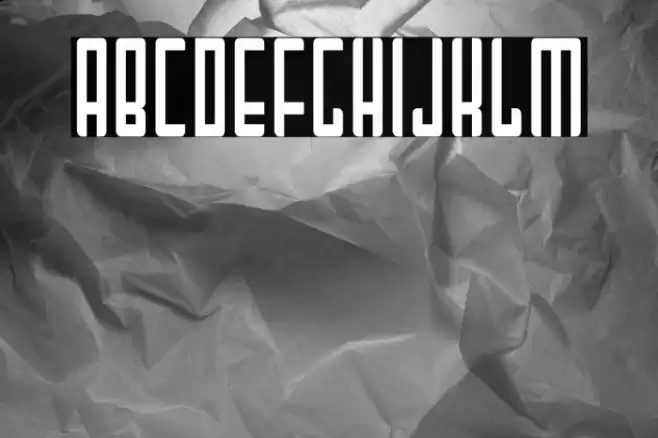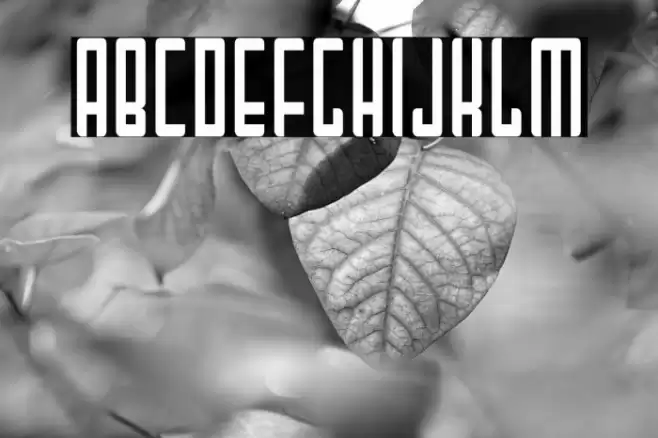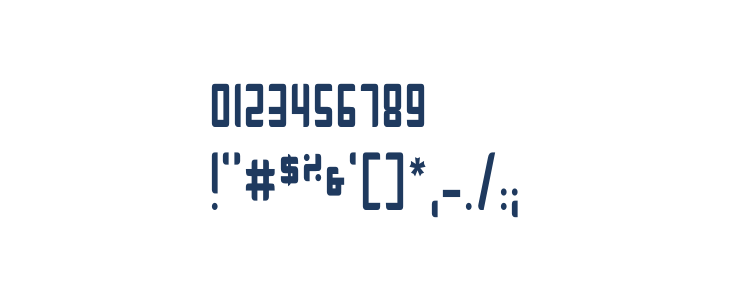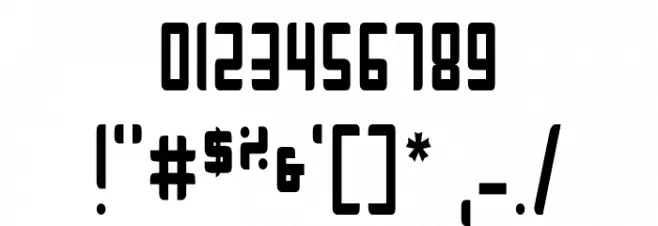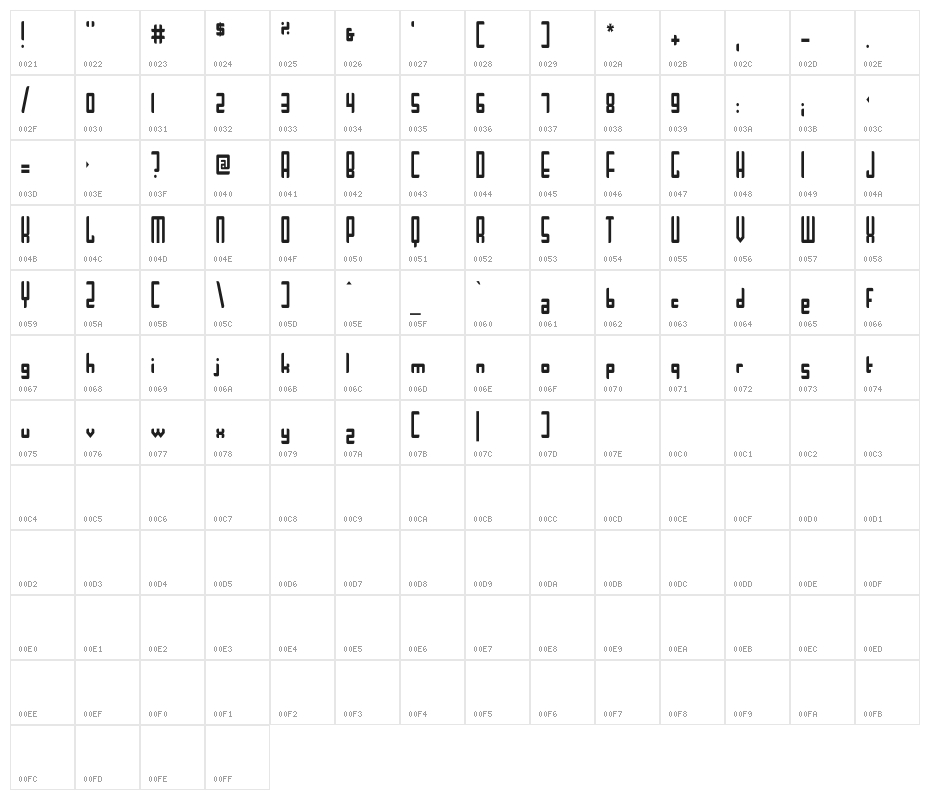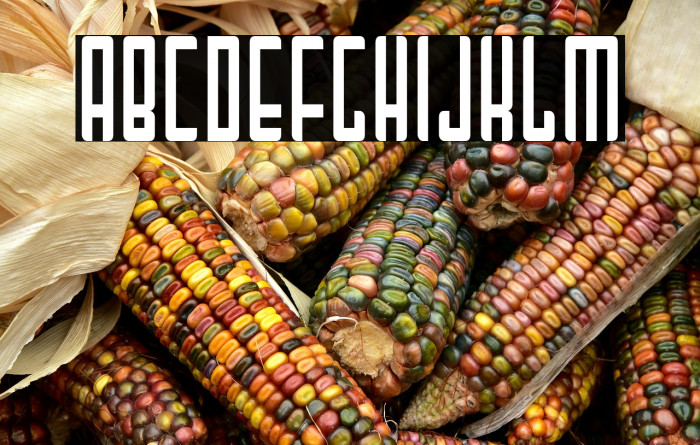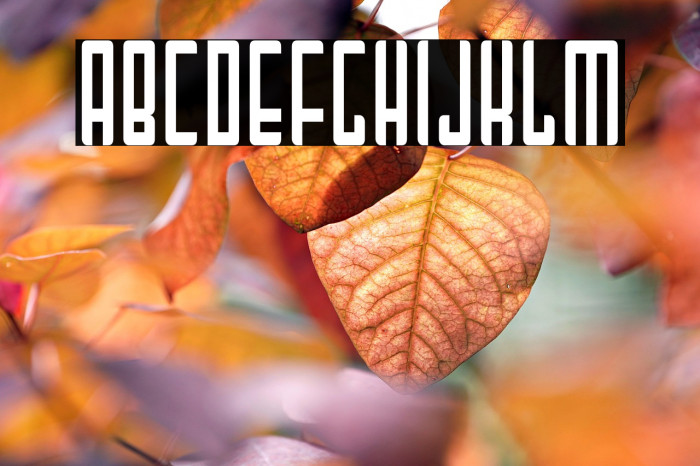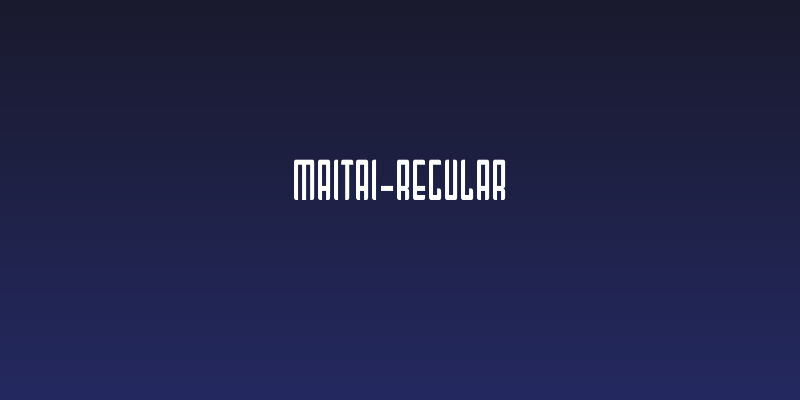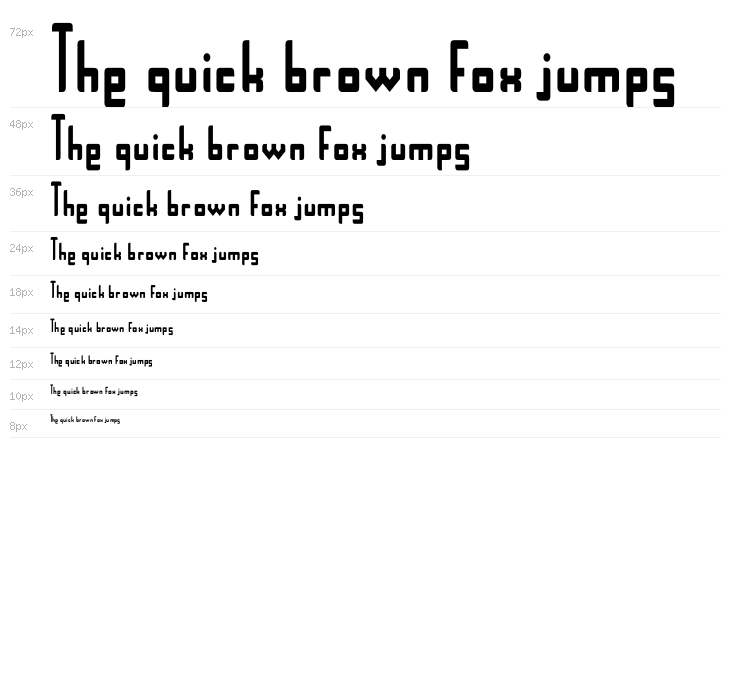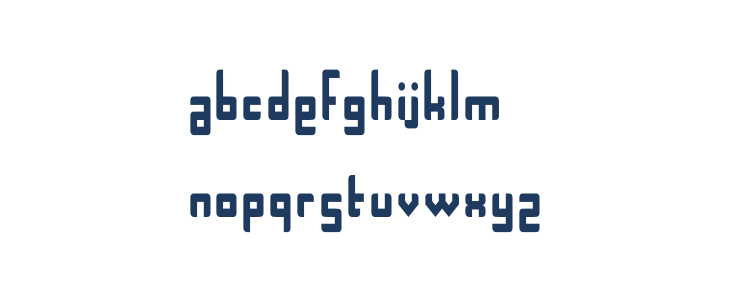
MaiTai-Regular Font
MaiTai-Regular Description
This font features a bold, geometric design with a modern flair. The characters are constructed with uniform stroke widths, giving it a monospaced appearance, although it is not strictly monospaced. The uppercase letters are tall and narrow, while the lowercase letters maintain a consistent height, providing a balanced look. The numerals are clear and legible, matching the overall style of the alphabet. Special characters are distinct and well-integrated, enhancing the font's versatility. The font's design is both functional and stylish, making it suitable for a variety of applications.
- Proposed Projects: Ideal for branding, posters, headlines, and digital interfaces where a modern and bold statement is needed.